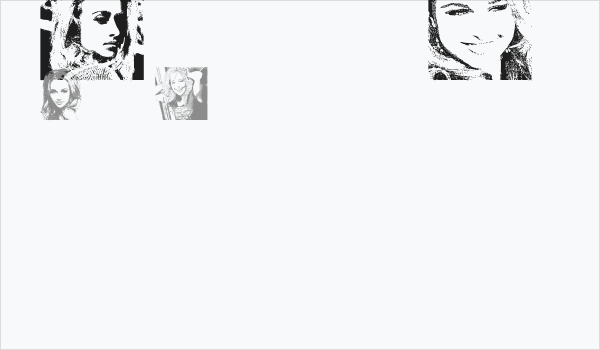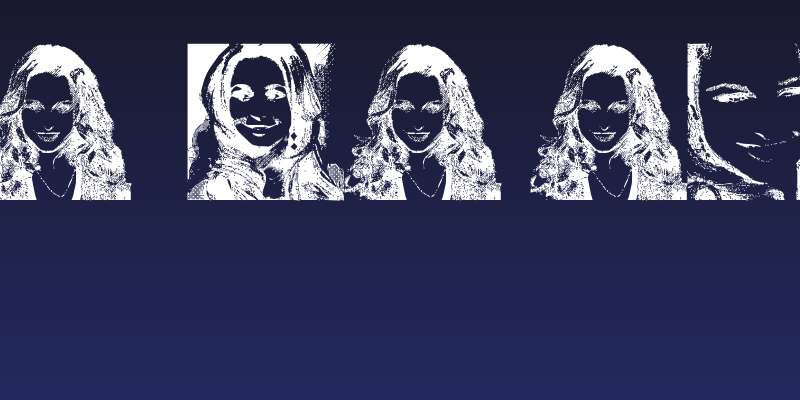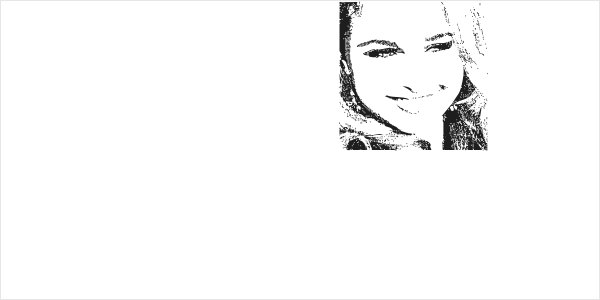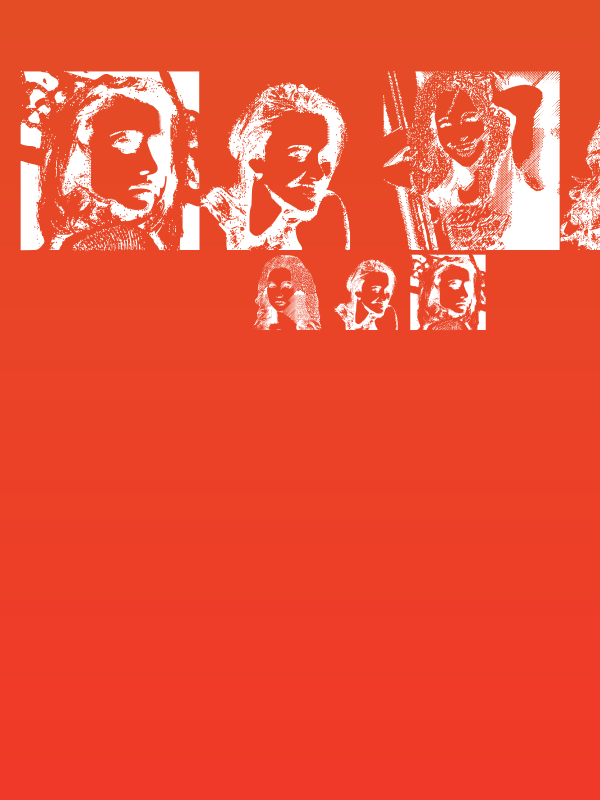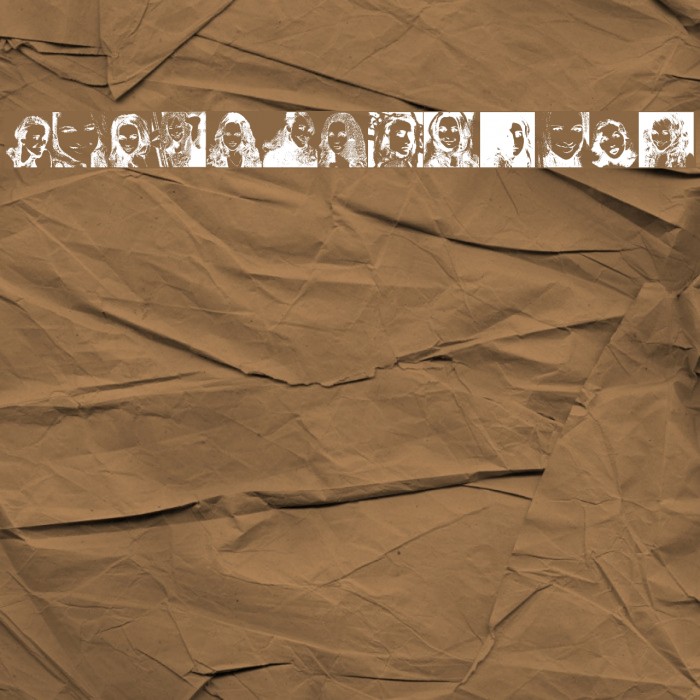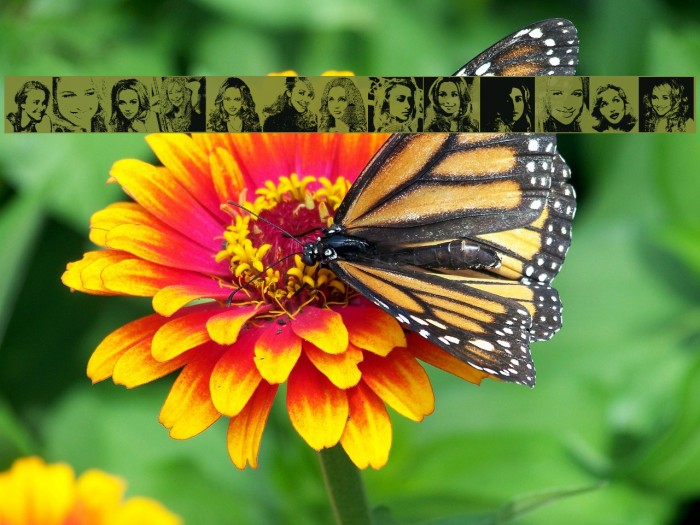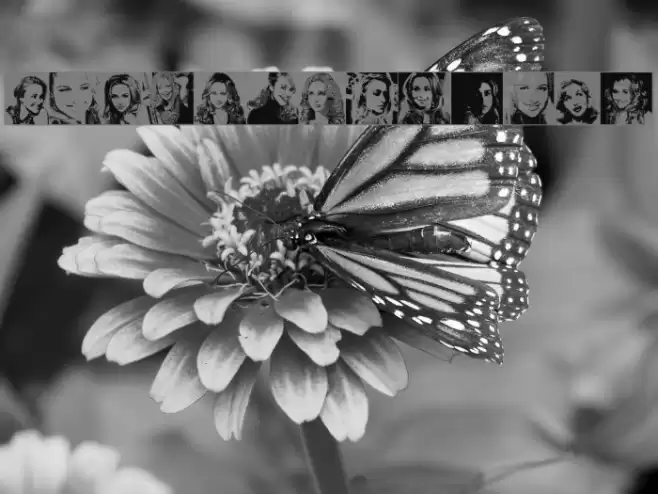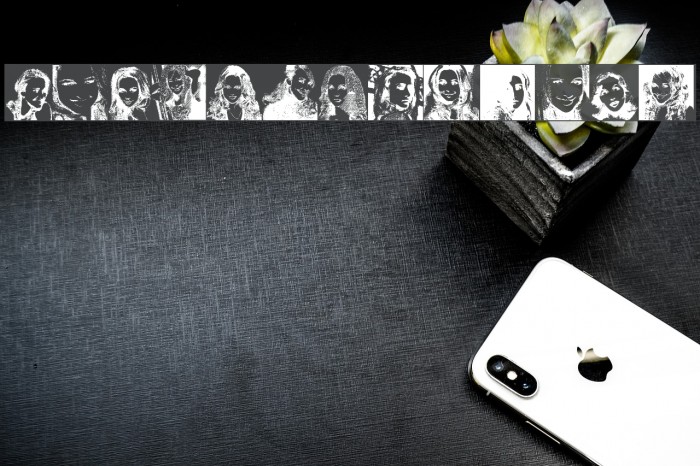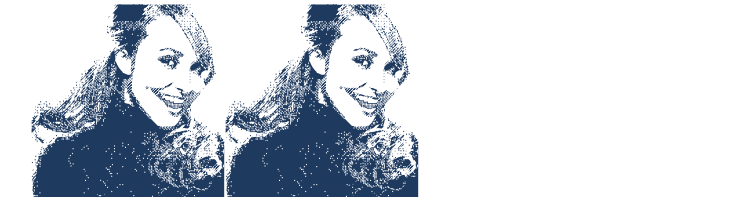
HaydenPanettiereBats demov1.5 Font
HaydenPanettiereBats demov1.5 Description
A decorative dingbat set featuring high-contrast, black-and-white stylized portrait illustrations in square frames, each corresponding to a character. The images are detailed and have a stencil-like, posterized effect.
| Overall Style | Decorative, Modern, Artistic |
| Use Case | Display, Decorative elements, Themed graphics |
| Proposed Projects | Posters, album covers, zines, creative branding, themed event materials. |